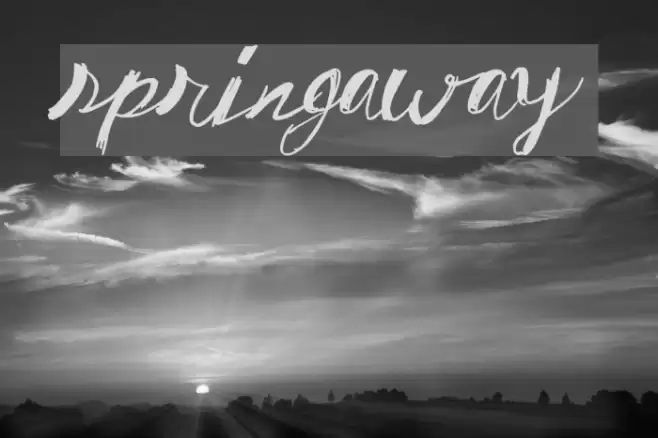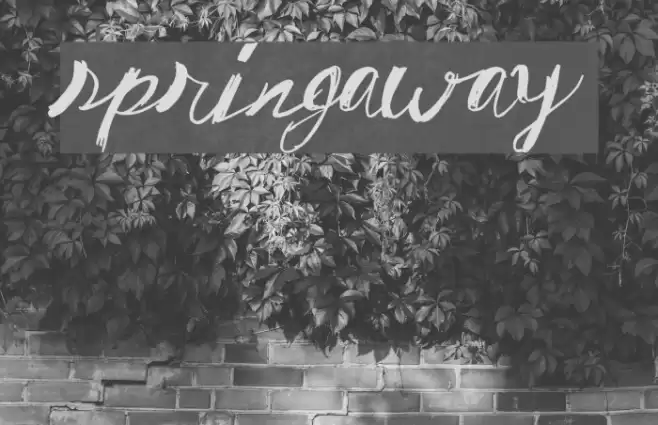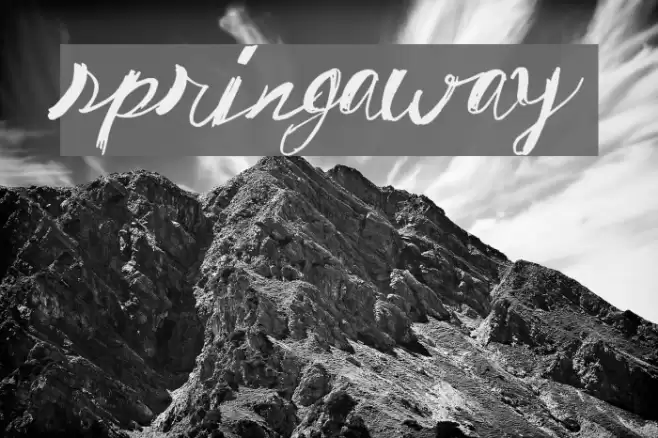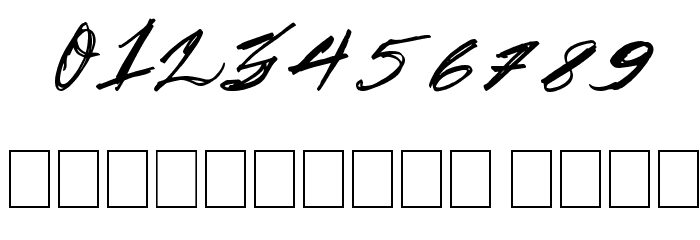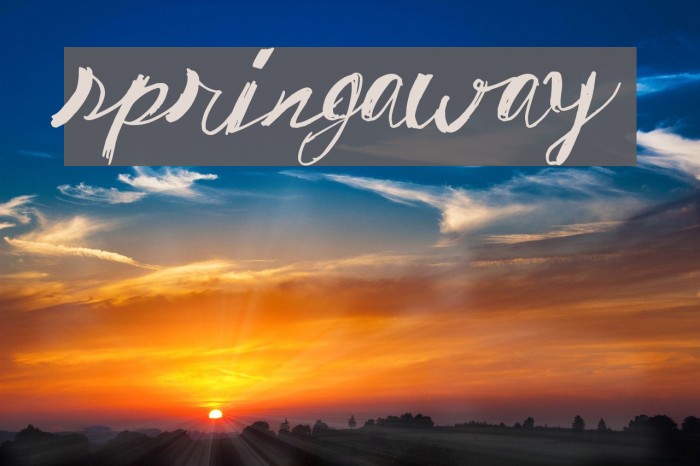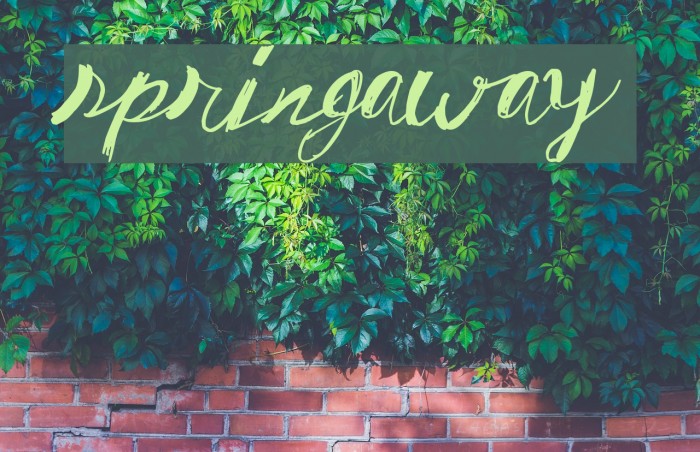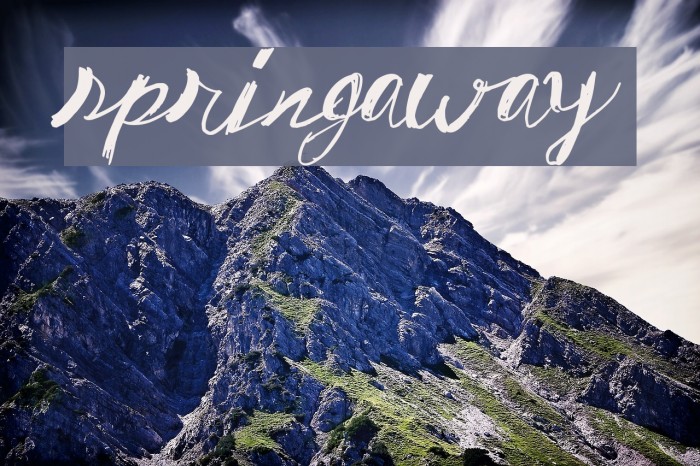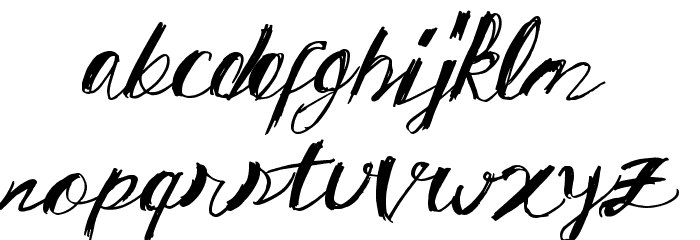
SpringAway Font
SpringAway Description
This font exudes a dynamic and expressive style, characterized by its fluid, handwritten script appearance. The letters are crafted with a sense of motion, featuring varying stroke widths that create a lively and energetic feel. The uppercase and lowercase letters maintain a consistent flow, with some characters extending slightly above or below the baseline, adding to its artistic flair. The numbers follow the same expressive style, ensuring uniformity across all characters. This font is perfect for projects that require a personal touch or a creative, informal vibe.
A dynamic, handwritten script font with expressive strokes and fluid motion from Uncategorized fonts.
- Proposed Projects: Ideal for greeting cards, invitations, branding, and artistic projects that require a personal touch.
- Use Case: Logos, Headlines, Artistic projects